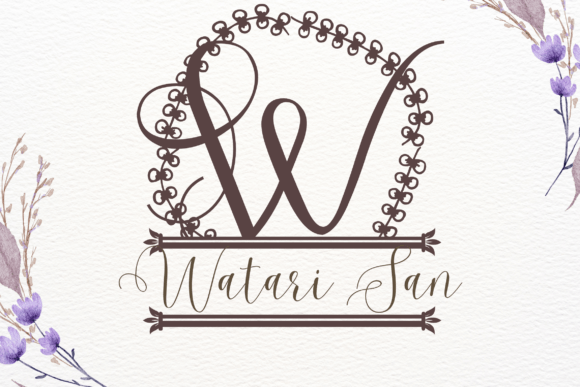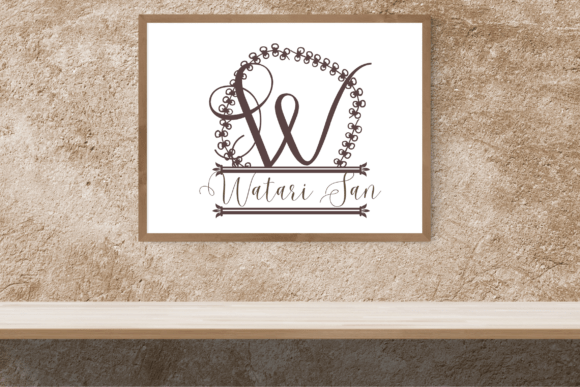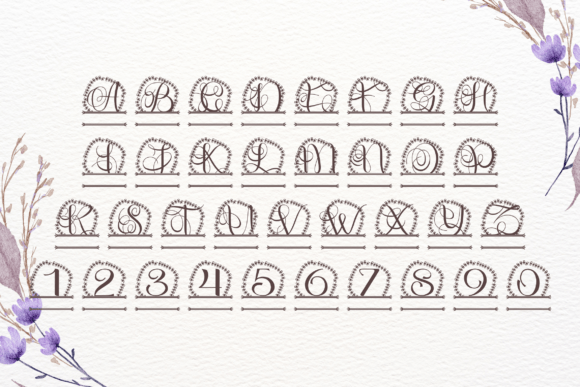
Designing with Delicate Touch: A Closer Look at Floralith Split Monogram Font
There’s nothing quite like the thrill of seeing a design come together – the perfect balance of elements, the subtle nuances that elevate it from ordinary to extraordinary. For many of us, this moment is the culmination of hours spent pouring over font choices, color palettes, and intricate details. And when it all falls into place, the sense of satisfaction is unparalleled.
One of the unsung heroes of this design process is the right font. Take, for instance, the Floralith Split Monogram Font – a beautifully crafted monogram font that brings a touch of elegance to any project. With its clean horizontal split and delicate floral embellishments, this font is the perfect choice for wedding decor, packaging, and personalized gifts. Its versatility and sophistication make it an invaluable tool for designers seeking to add a refined and romantic touch to their work.
Floralith Split Monogram Font Key Features
- Unique Characteristics: Distinctive split monogram design, floral patterns, and intricate details create a visually striking effect.
- Font Style: Available in uppercase and lowercase letters, with a focus on elegant, cursive, and handwritten styles.
Floralith Split Monogram Font Review
I recently had the chance to work with the Floralith Split Monogram Font, and I must say it’s a unique addition to any design project. ✨ One of the things that stands out about this font is its intricate design, which makes it perfect for creating beautiful and elegant monograms. The split monogram style adds a touch of sophistication and makes it ideal for weddings, special occasions, or any high-end branding.
Another thing I appreciate about Floralith Split Monogram Font is its versatility. ✨ It can be used for a wide range of applications, from invitations and announcements to business cards and logos. The font is also highly customizable, allowing you to adjust the size, color, and layout to suit your design needs.
While Floralith Split Monogram Font is a great addition to any design project, there are a few limitations to consider:
- ⚠️ Limited character set: The font is primarily designed for monograms, so it may not be suitable for large blocks of text.
Overall, I’m impressed with Floralith Split Monogram Font. It’s a beautiful and elegant font that’s perfect for adding a touch of sophistication to your designs. While it may have some limitations, I believe it’s well worth the investment for anyone looking to create unique and memorable designs.
The Floralith Split Monogram Font is ideal for creating elegant and sophisticated designs.
Common use cases include:
Business cards and branding materials
Special occasion gifts and decorations
Remember to experiment with different font sizes, colors, and effects to get the most out of this beautiful font.